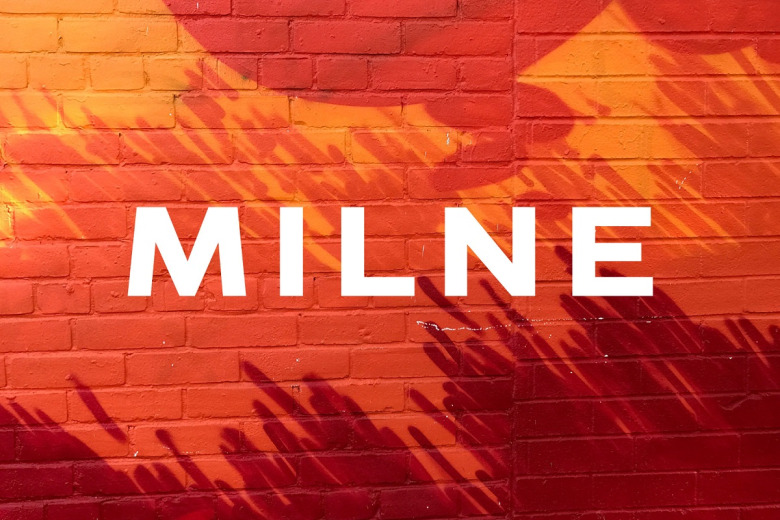
Milne Font
Milne is a simple sans serif family with clean lines which can ensure that your work stands out. It is well-suited to product packaging, branding project, magazine covers, social media profile pictures or wedding videos, as well as any word art beyond backgrounds.
Milne Sans Serif Font Family